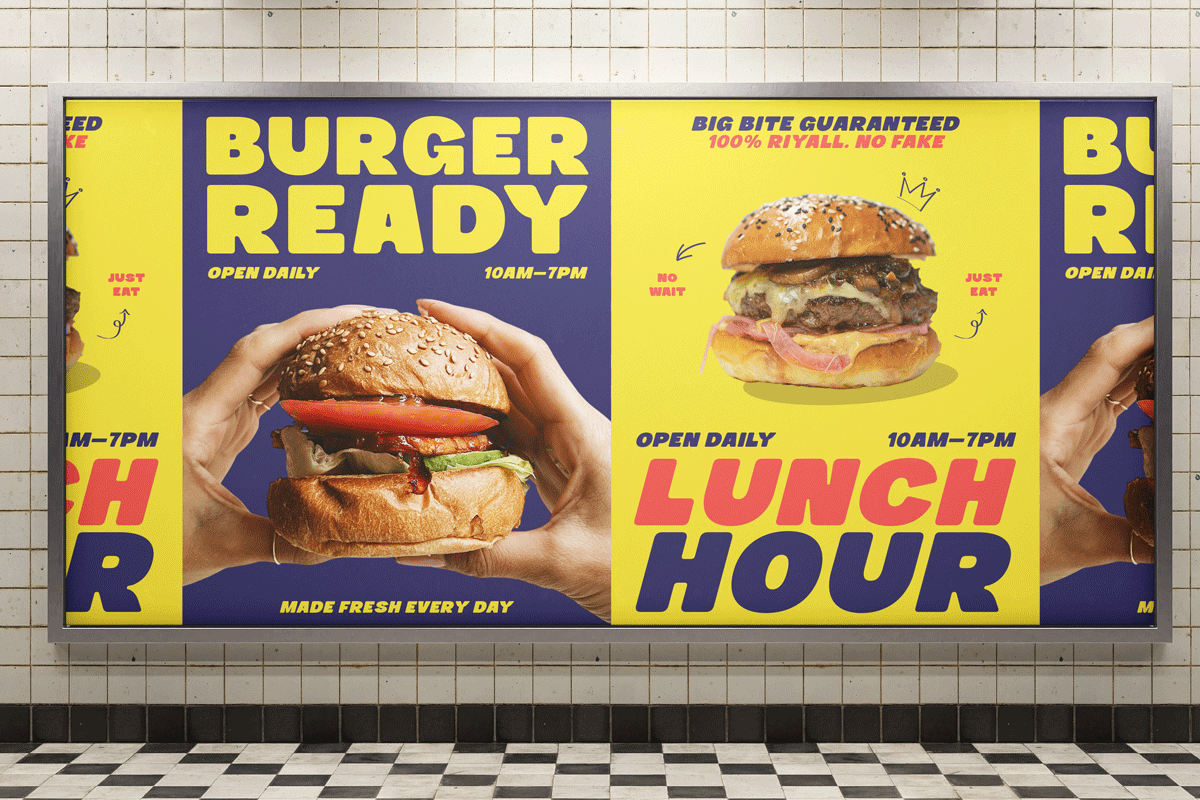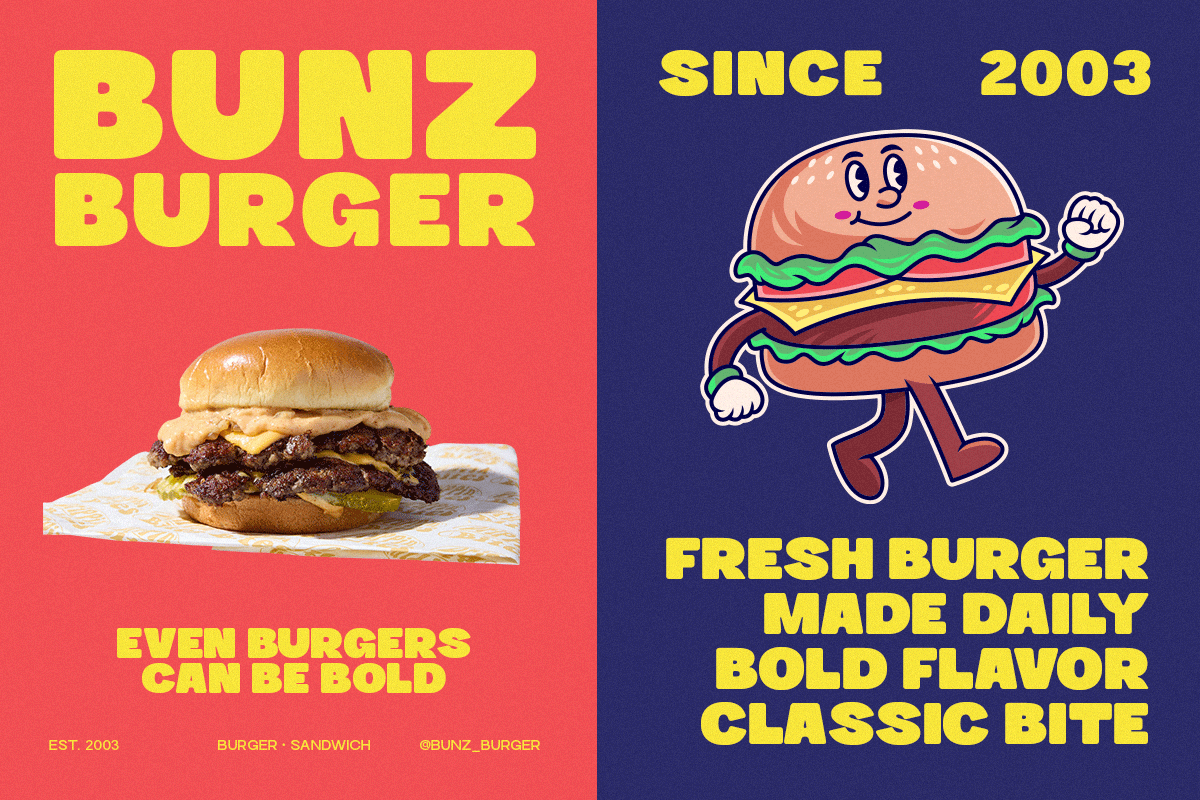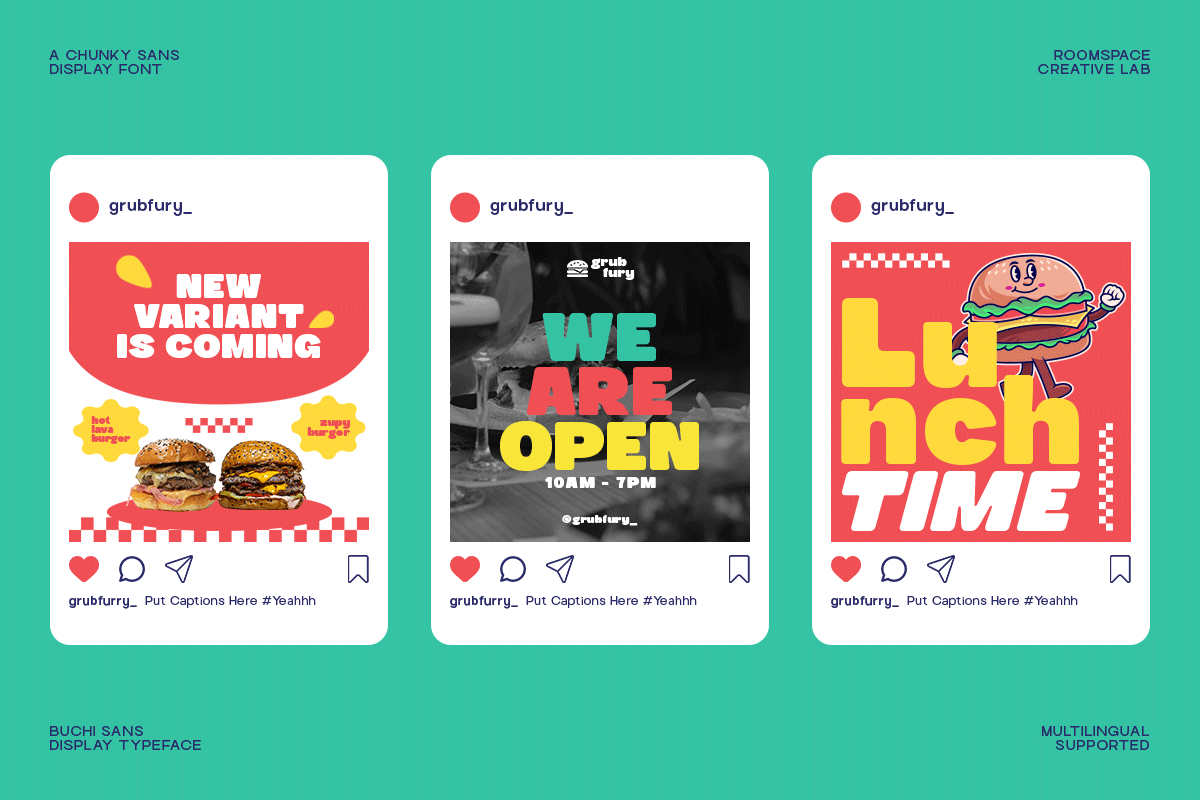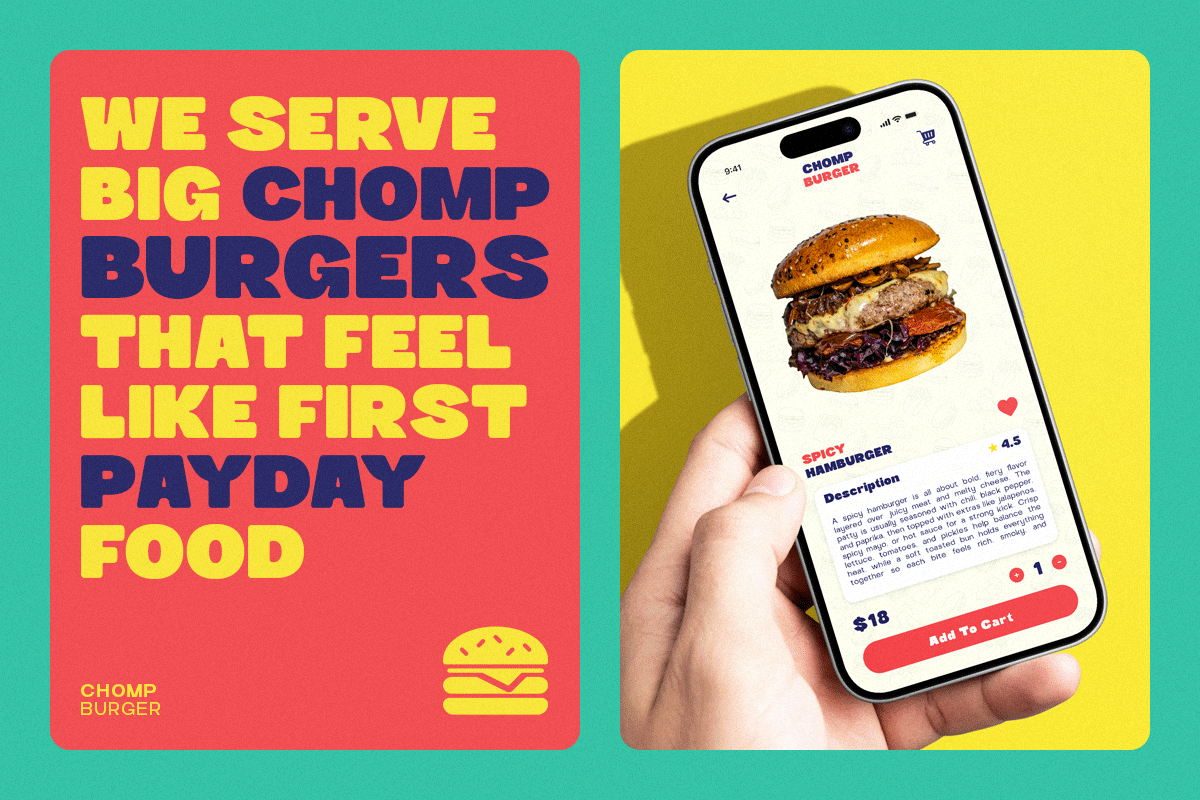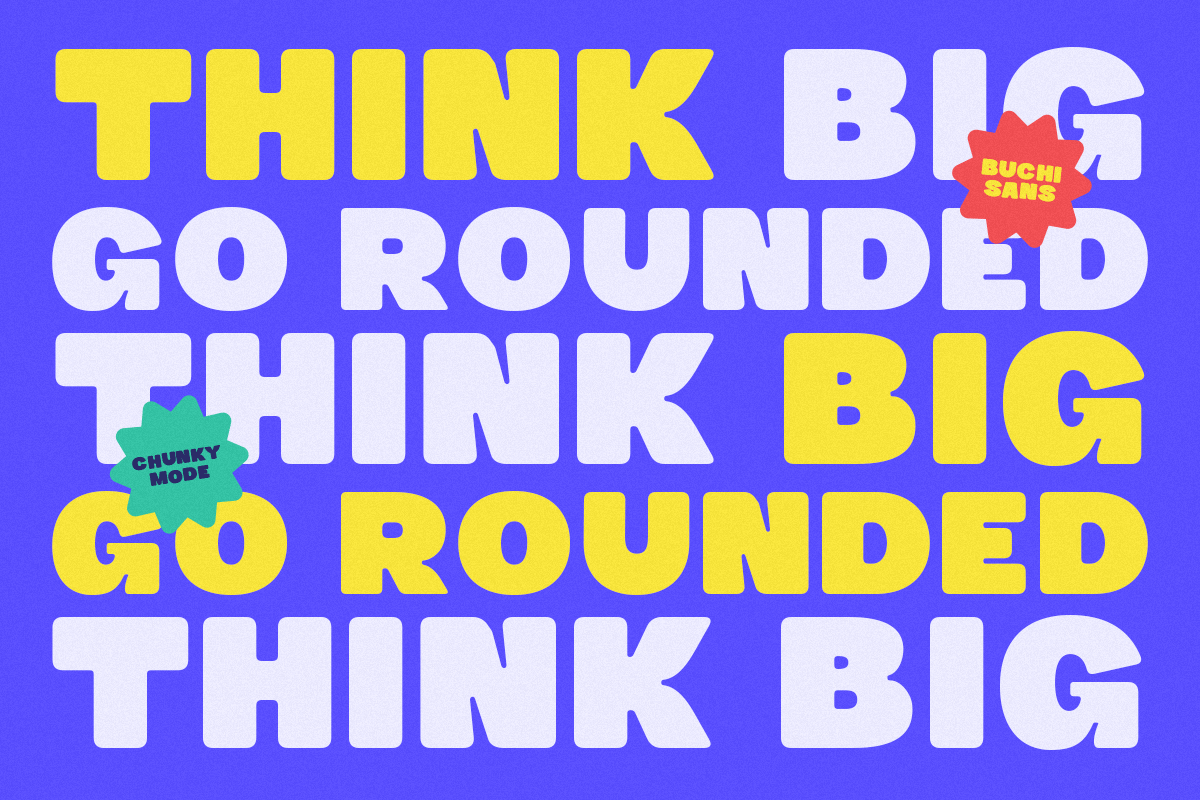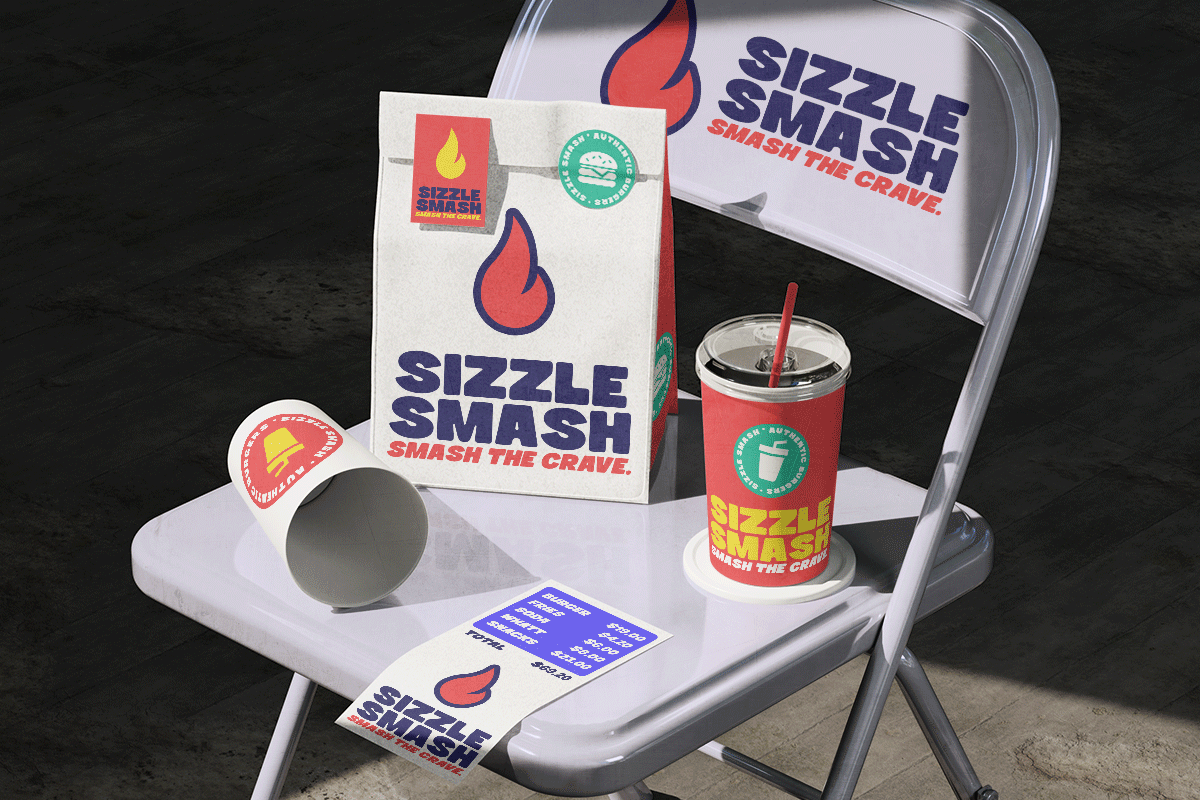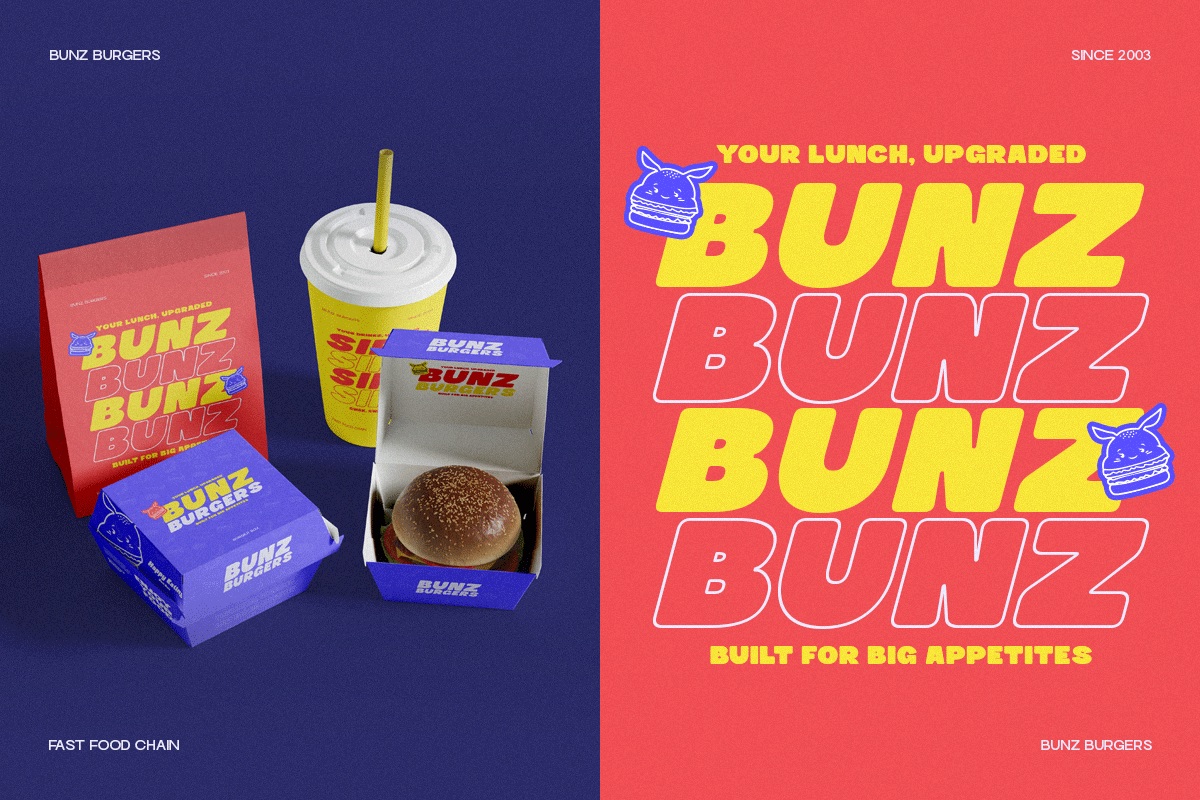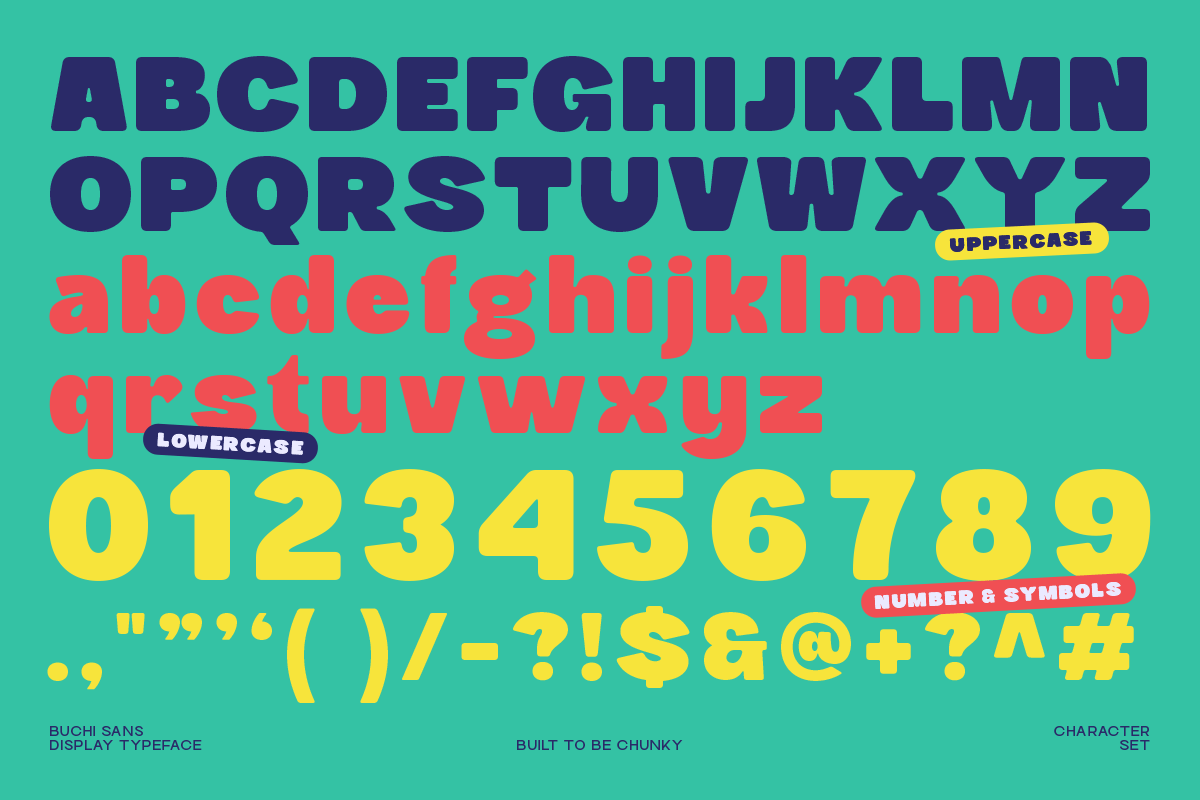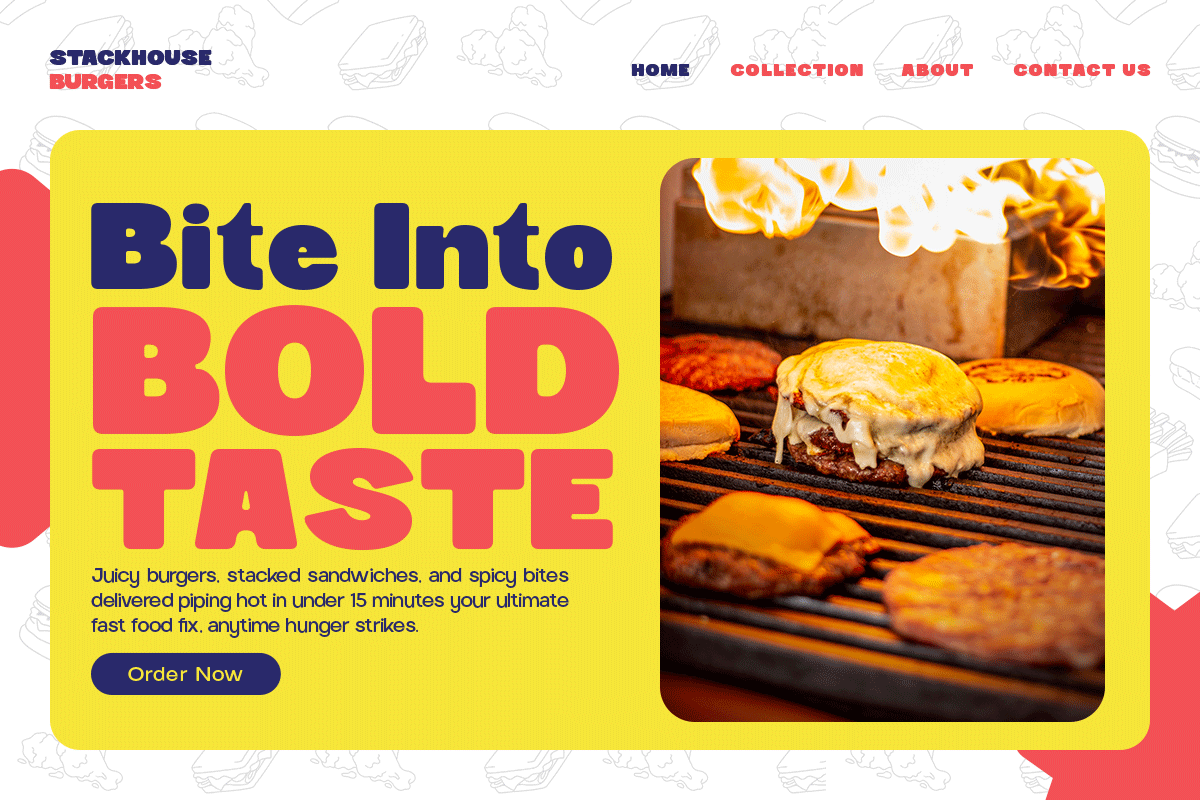
Buchi Sans – Bold & Playful Display
Bold, playful, and high-energy a chunky sans-serif built to grab attention instantly. Buchi Sans delivers loud visual impact with rounded, oversized letterforms that feel fun, confident, and expressive. The tone is joyful, energetic, and unapologetically bold perfect for designs that need to stand out fast. Buchi Sans brings big-letter personality + modern display attitude, making every headline feel alive, friendly, and memorable.
Buchi Sans a bold and playful display font built with chunky letterforms and friendly curves. Designed to stand out instantly, Buchi Sans adds big energy and joyful character to any layout. Whether you’re designing posters, social media content, brand visuals, or packaging, Buchi Sans helps your message feel confident, modern, and unforgettable.
- Bold chunky sans-serif style
- Optimized for headlines & display use
Perfect For : Branding, posters, social media, packaging, logos, merchandise, event graphics, and creative campaigns.